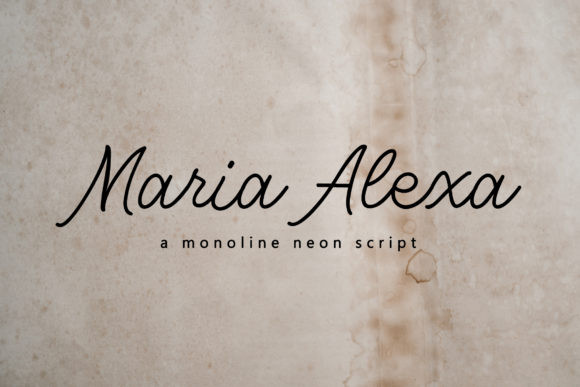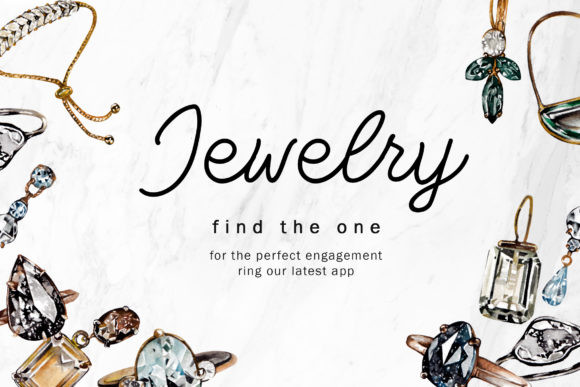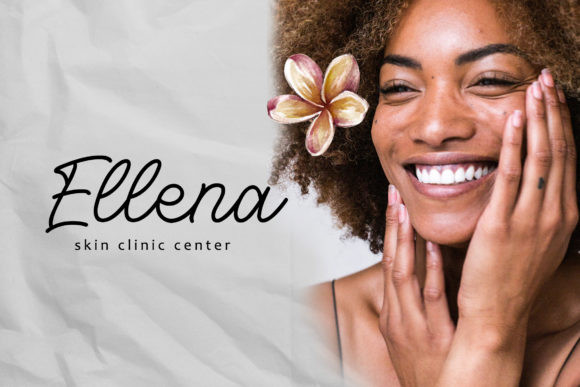
Maria Alexa Font
Maria Alexa is a delicate, casual and thin script font. Fall in love with its incredibly versatile style and use it to create gorgeous wedding invitations, beautiful stationary art, eye-catching social media posts, and much more!